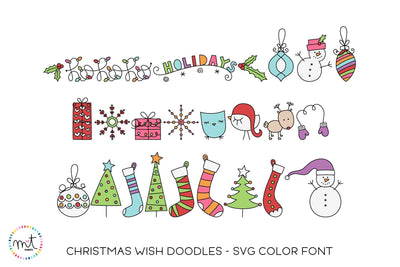
MTF Christmas Wish Doodles
Christmas Wish Doodles includes 48 adorable, colorful and doodled characters that are perfect for all of your holiday projects!